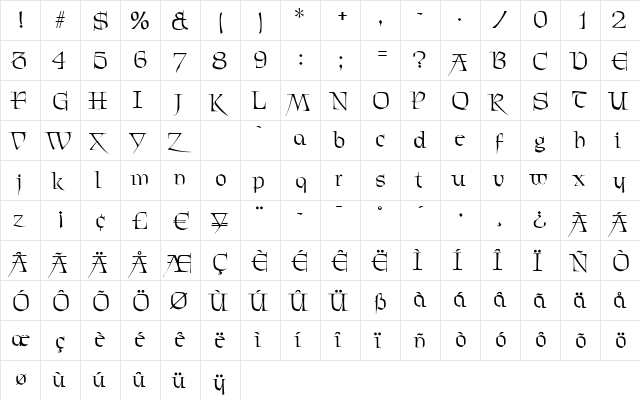
JaquelineBecker Regular
Design Context for JaquelineBecker Typeface
JaquelineBecker is a composed and adaptable typeface that performs quietly and consistently across a wide range of design contexts.